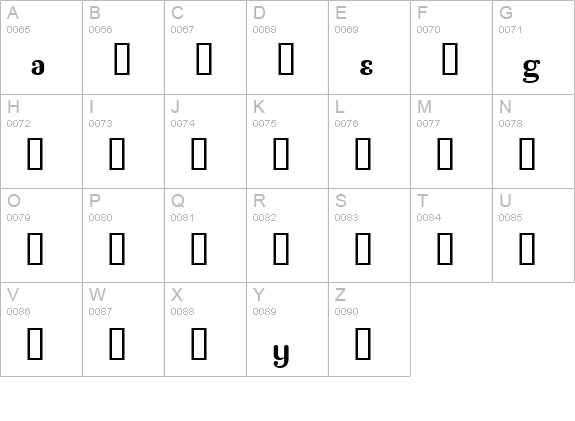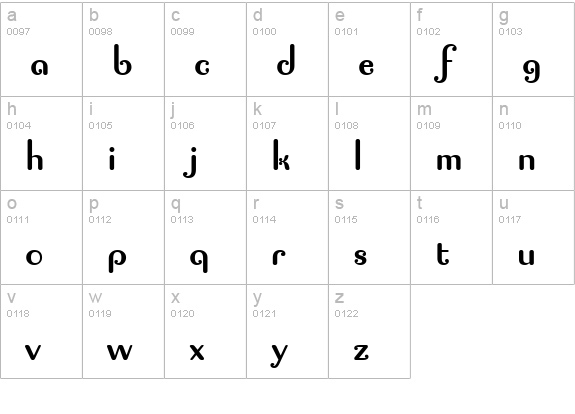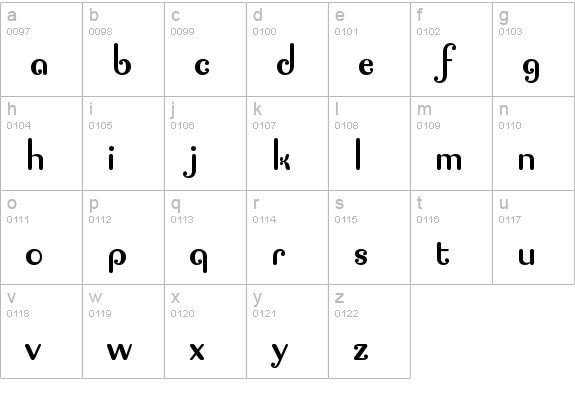
Pagan Poetry Font Details
Pagan Poetry font is a mesmerizing and enchanting typeface that captures the essence of ancient pagan rituals and mysticism. Its intricate and ornate letterforms are inspired by the delicate and intricate patterns found in ancient manuscripts and inscriptions. With its graceful curves and elegant lines, Pagan Poetry font brings a touch of otherworldly beauty to any design project. This font is a perfect choice for those seeking a unique and captivating typographic experience. Its intricate details and flowing shapes make it ideal for adding a touch of magic to book covers, invitations, posters, and more. Pagan Poetry font is designed to captivate and transport the reader to a world of fantasy and wonder. What sets Pagan Poetry font apart is that it is freely available to download at FontsMarket.com. This means that anyone can access and use this captivating font without any restrictions. Whether you are a professional designer or a hobbyist, you can bring your creative visions to life with this beautiful typeface. With its extensive character set, Pagan Poetry font allows you to express your creativity and add a touch of elegance to your designs. Whether you are looking to create a mystical logo or design a spellbinding title for a fantasy novel, this font offers endless possibilities. Embrace the magic of Pagan Poetry font and let it transport you to a world of ancient enchantment. Download it for free at FontsMarket.com and unleash your imagination.